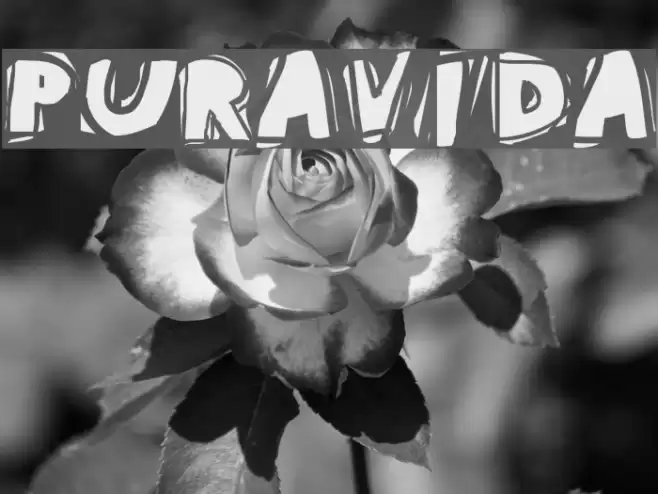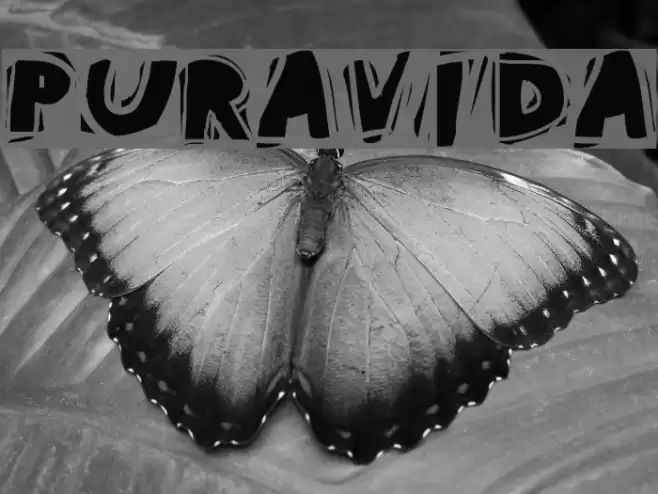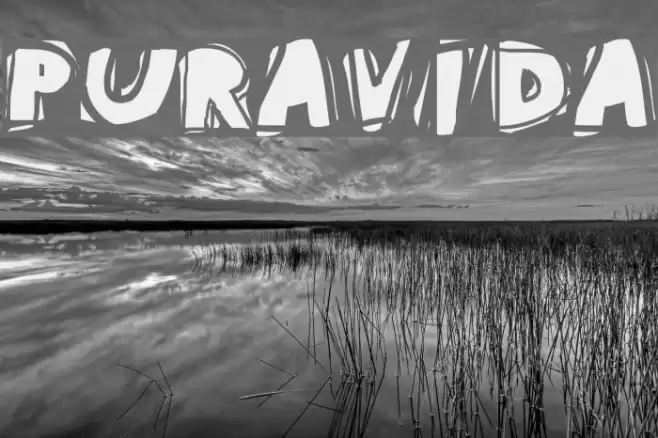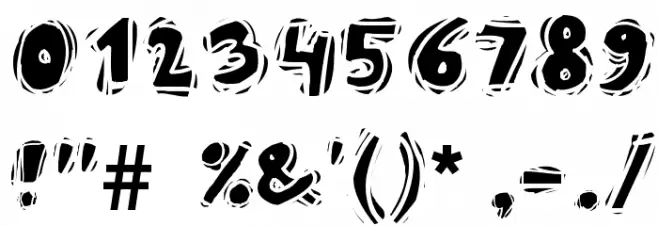
PuraVida Font
PuraVida Description
This font features a bold, dynamic style with a distressed, brush-like texture. The characters are uppercase and lowercase with a playful, energetic appearance. The strokes are uneven, giving a hand-drawn, artistic feel. The numbers and special characters maintain the same textured style, adding to the font's cohesive look. This design is perfect for projects that require a bold statement or a creative touch. The irregularities in the strokes add a unique character, making it suitable for eye-catching designs.
A bold, textured font with a distressed, brush-like appearance from Distorted Eroded fonts.
- Proposed Projects: Ideal for posters, album covers, branding, and creative projects that require a bold, artistic touch.